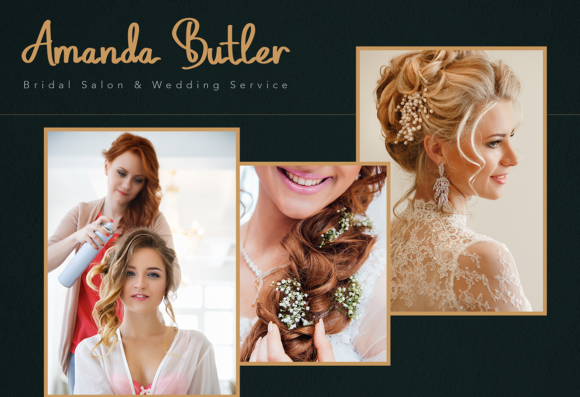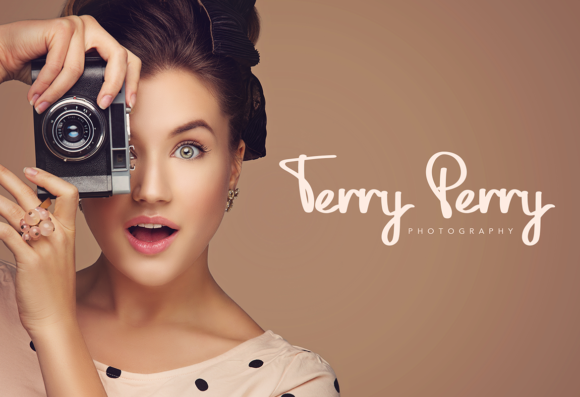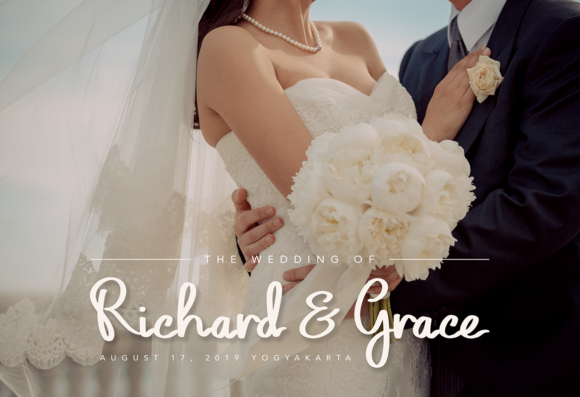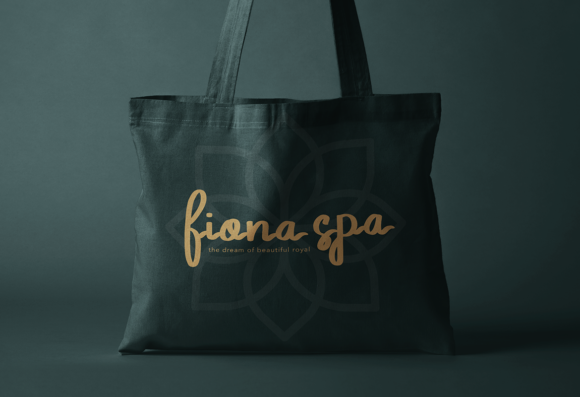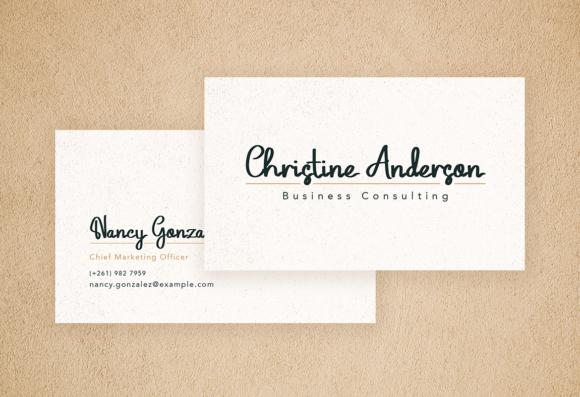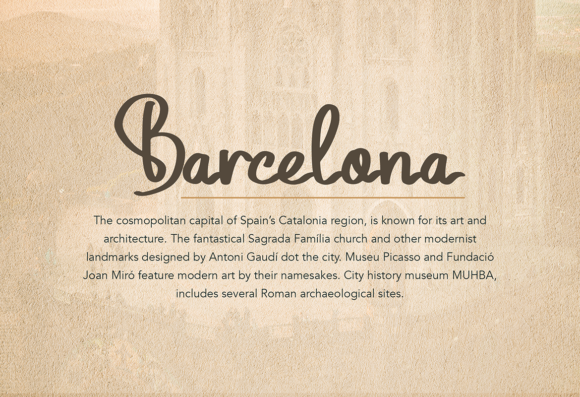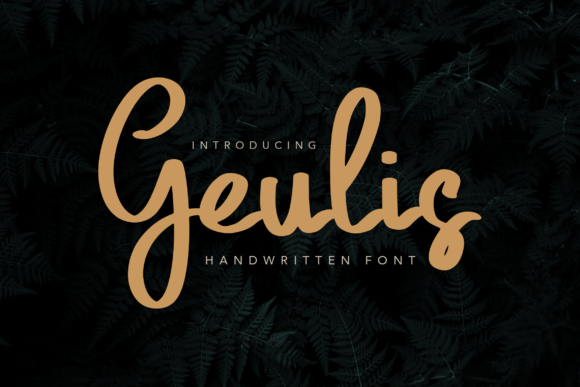
Discover the Elegance of Geulis Font: Elevate Your Crafts with a Personal Touch
Are you a designer, crafter, or DIY enthusiast looking to add a unique and modern flair to your projects? Look no further than the Geulis Font, a stunning script that exudes coolness and sophistication. With its beautiful, flowing lines and elegant feel, Geulis is the perfect addition to any craft project, allowing you to infuse your work with a personal touch that sets it apart.
What is Geulis Font?
Geulis Font is a modern script font designed to bring a touch of elegance and personality to your crafts. Its stunning feel is characterized by smooth, cursive lines and a distinctive style that is both contemporary and timeless. Whether you’re working on a handmade card, a scrapbooking project, or a customized gift, Geulis Font is the ideal choice for adding a dash of sophistication and whimsy.
Key Features of Geulis Font
- Modern and Cool Design: Geulis Font boasts a sleek, modern design that is sure to catch the eye. Its unique style is perfect for crafters who want to add a fresh and trendy touch to their projects.
- Elegant and Sophisticated: With its flowing script lines, Geulis Font exudes elegance and sophistication, making it ideal for special occasions, gifts, and personalized items.
- Versatile: Geulis Font is incredibly versatile and can be used on a wide range of crafts, from paper crafting and scrapbooking to jewelry making and customized gifts.
- Easy to Use: Geulis Font is user-friendly and can be easily incorporated into your projects, whether you’re a seasoned designer or a beginner crafter.
How to Use Geulis Font in Your Crafts
Using Geulis Font in your crafts is easy and fun. Here are a few ideas to get you started:
- Handmade Cards: Add a personal touch to your greeting cards with Geulis Font. Use it to write out the recipient’s name, a special message, or a heartfelt greeting.
- Scrapbooking: Geulis Font is perfect for scrapbooking projects. Use it to title your pages, add captions to your photos, or create a beautiful journaling section.
- Customized Gifts: Make your gifts extra special with Geulis Font. Use it to monogram a towel, create a personalized cutting board, or add a custom message to a piece of jewelry.
- DIY Projects: Geulis Font can be used on a wide range of DIY projects, from customized wall art to handmade home decor items.
Tips and Tricks for Working with Geulis Font
Here are a few tips and tricks to help you get the most out of Geulis Font:
- Experiment with Colors: Geulis Font looks great in a variety of colors. Experiment with different hues and combinations to find the perfect look for your project.
- Play with Sizes: Geulis Font can be used in a range of sizes, from small and delicate to large and bold. Experiment with different sizes to add visual interest to your project.
- Combine with Other Fonts: Geulis Font pairs well with other fonts. Try combining it with a bold font for a striking contrast or with a simple font for a more subtle look.
Geulis Font is a stunning script font that is sure to elevate your crafts and add a personal touch to your projects. With its modern and cool design, elegant feel, and versatility, Geulis Font is the perfect choice for designers, crafters, and DIY enthusiasts. Whether you’re working on a handmade card, a scrapbooking project, or a customized gift, Geulis Font is sure to make your project stand out. So why wait? Discover the elegance of Geulis Font today and take your crafts to the next level!